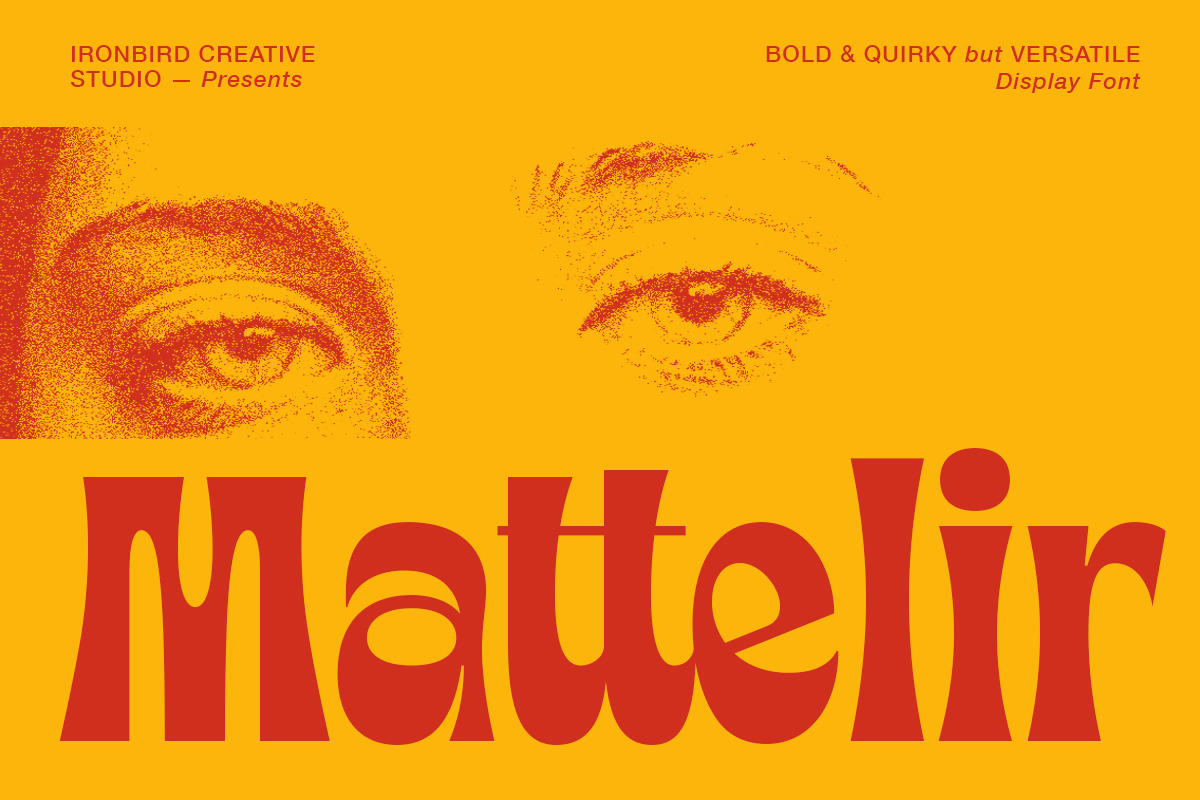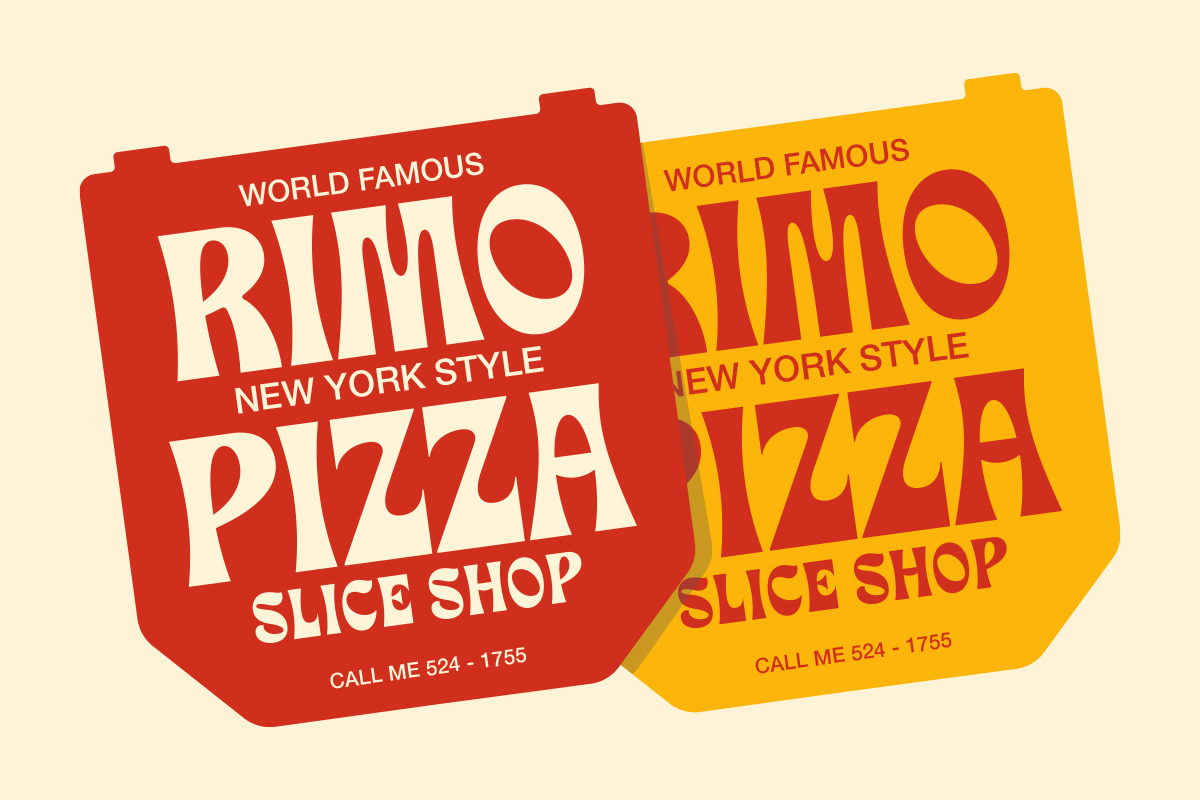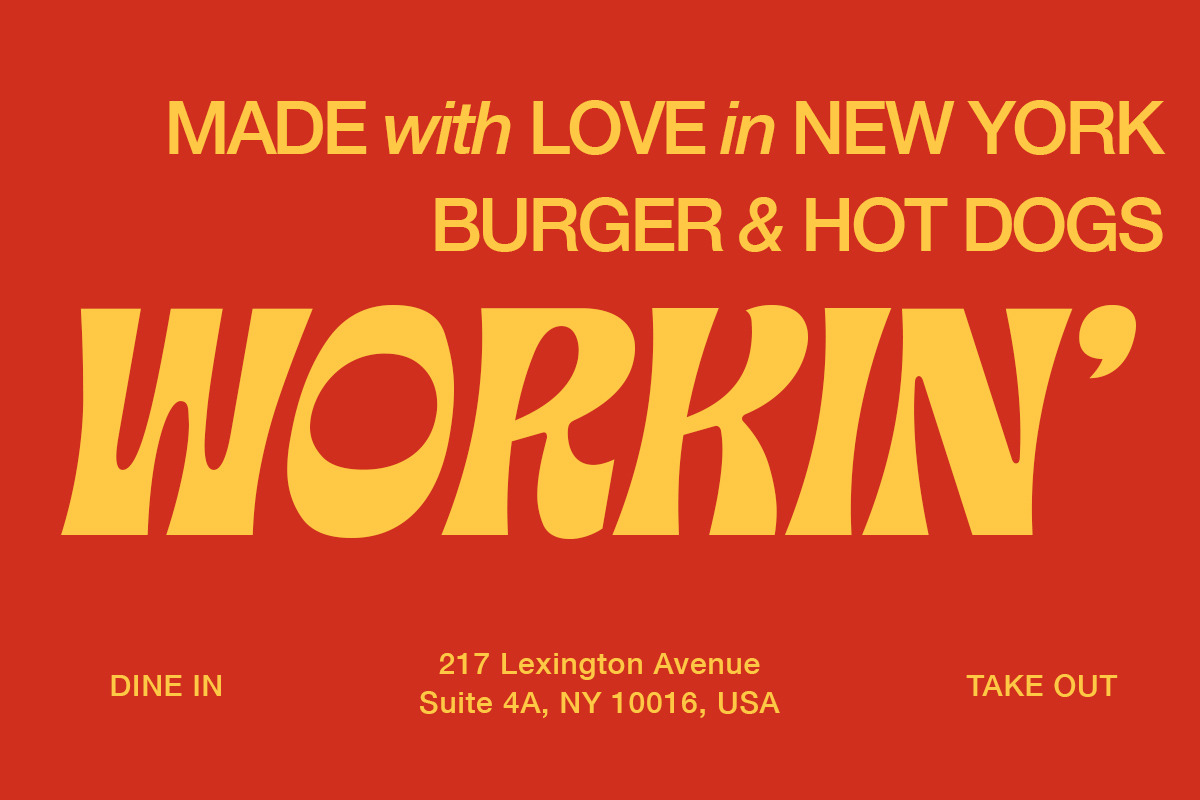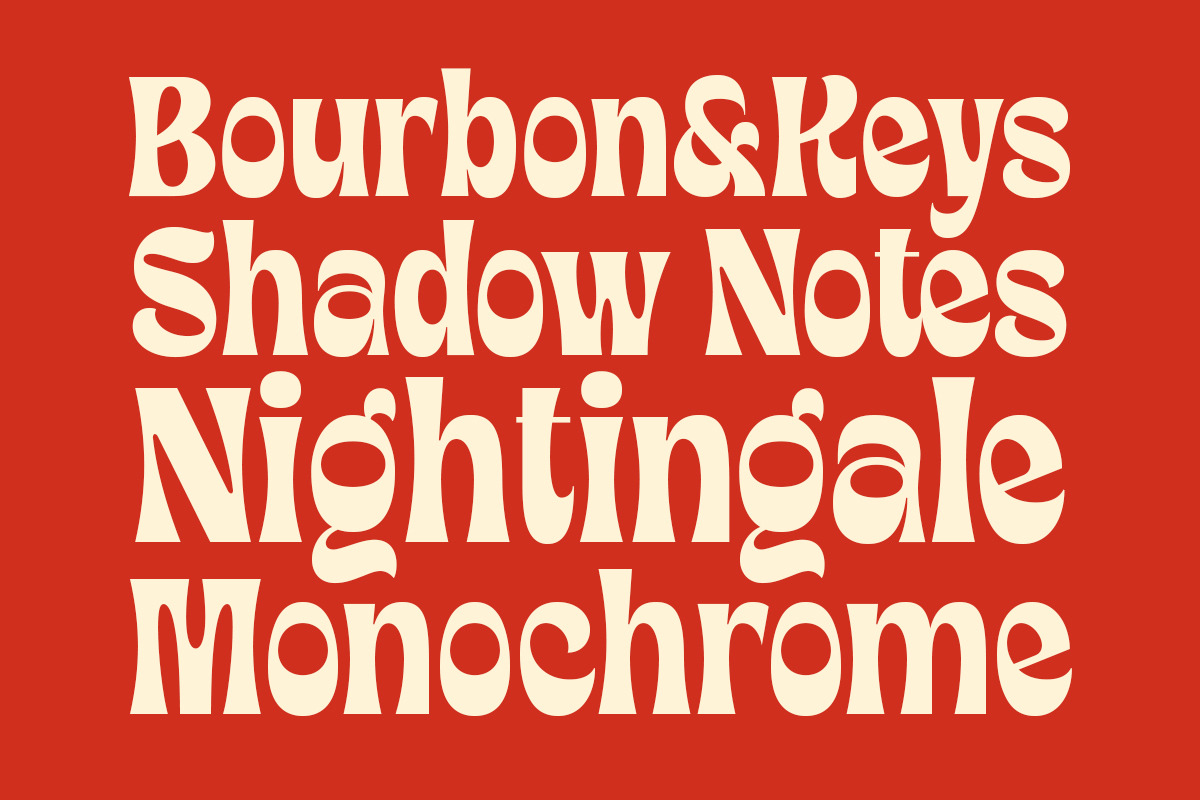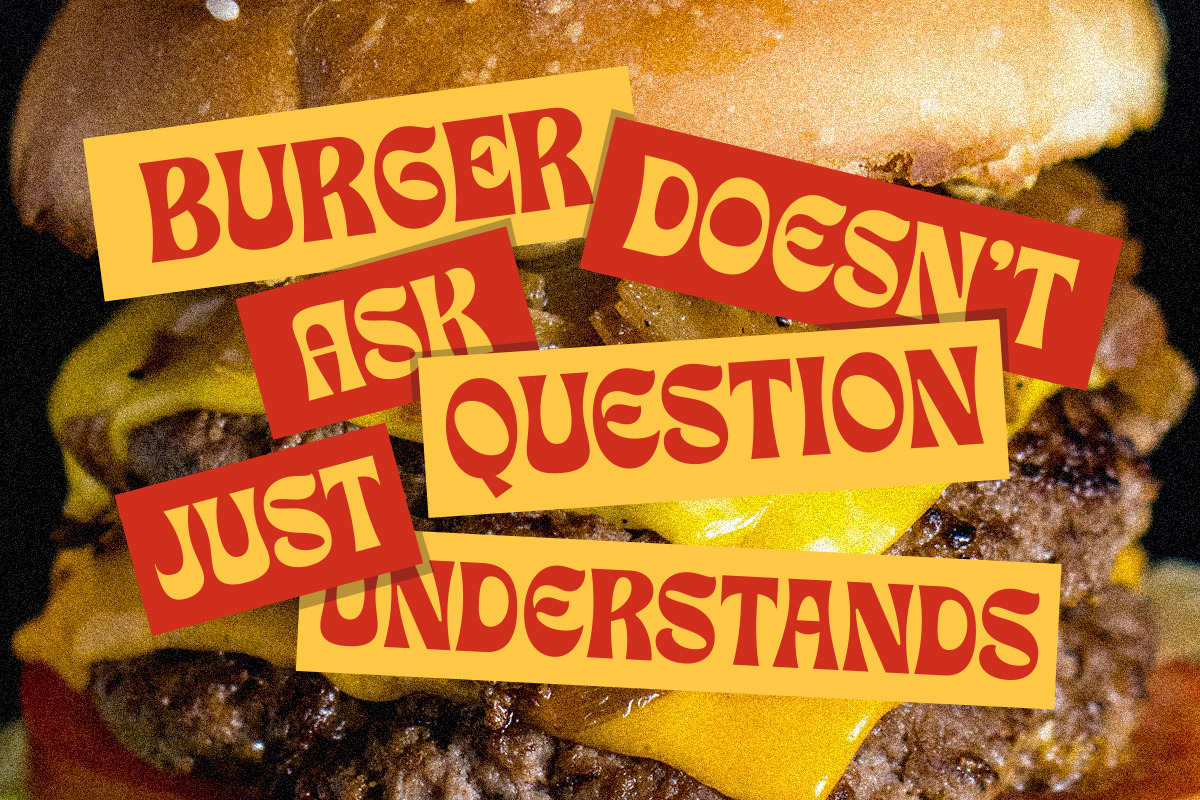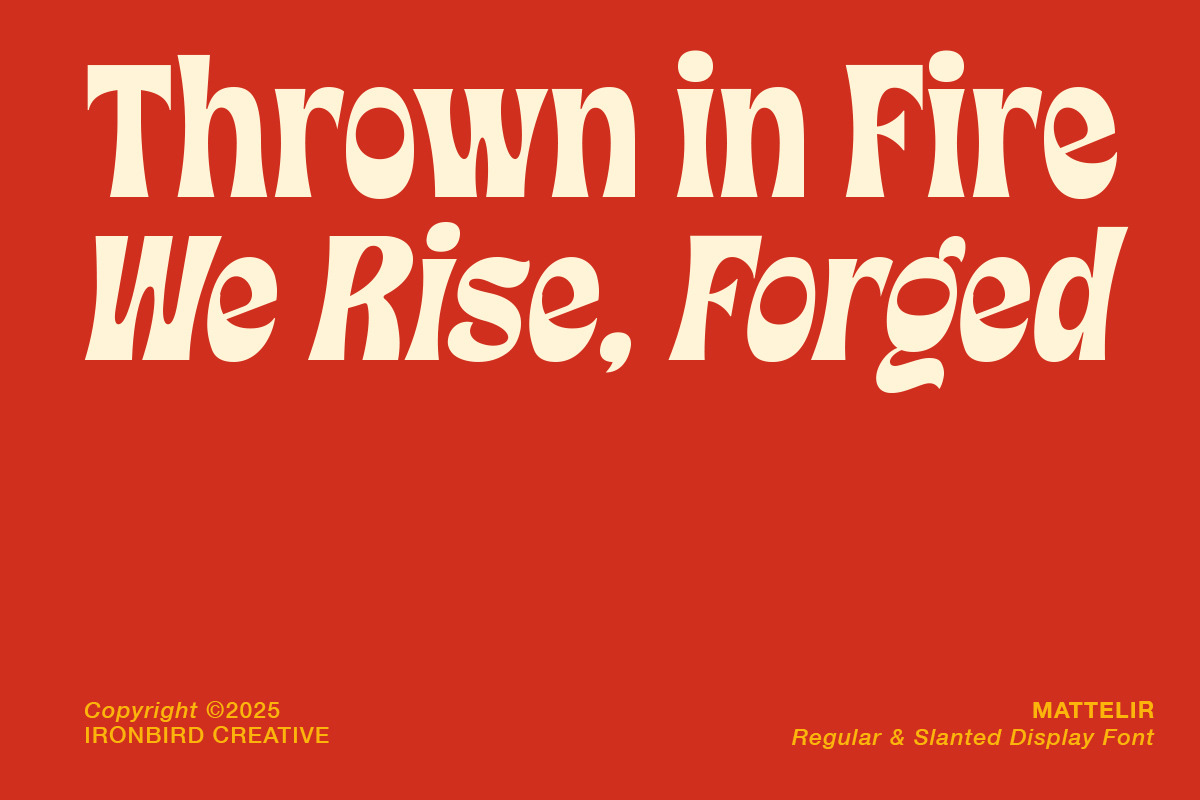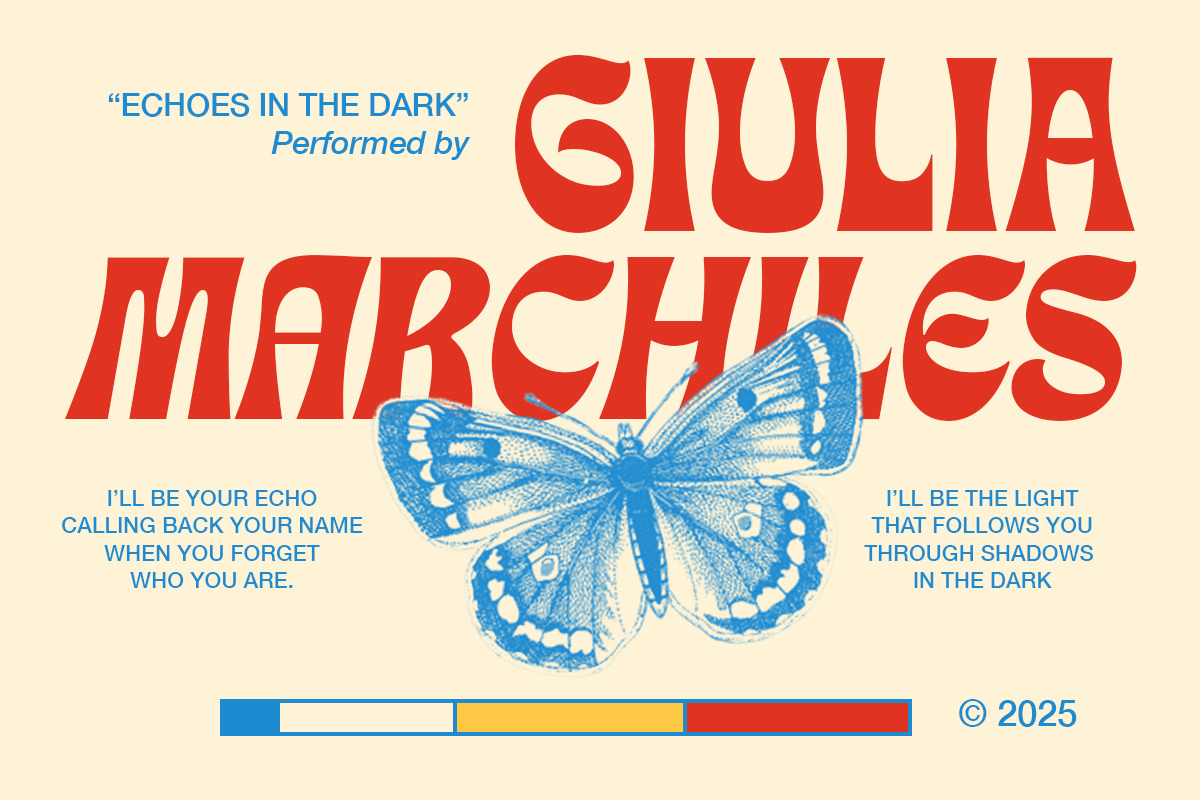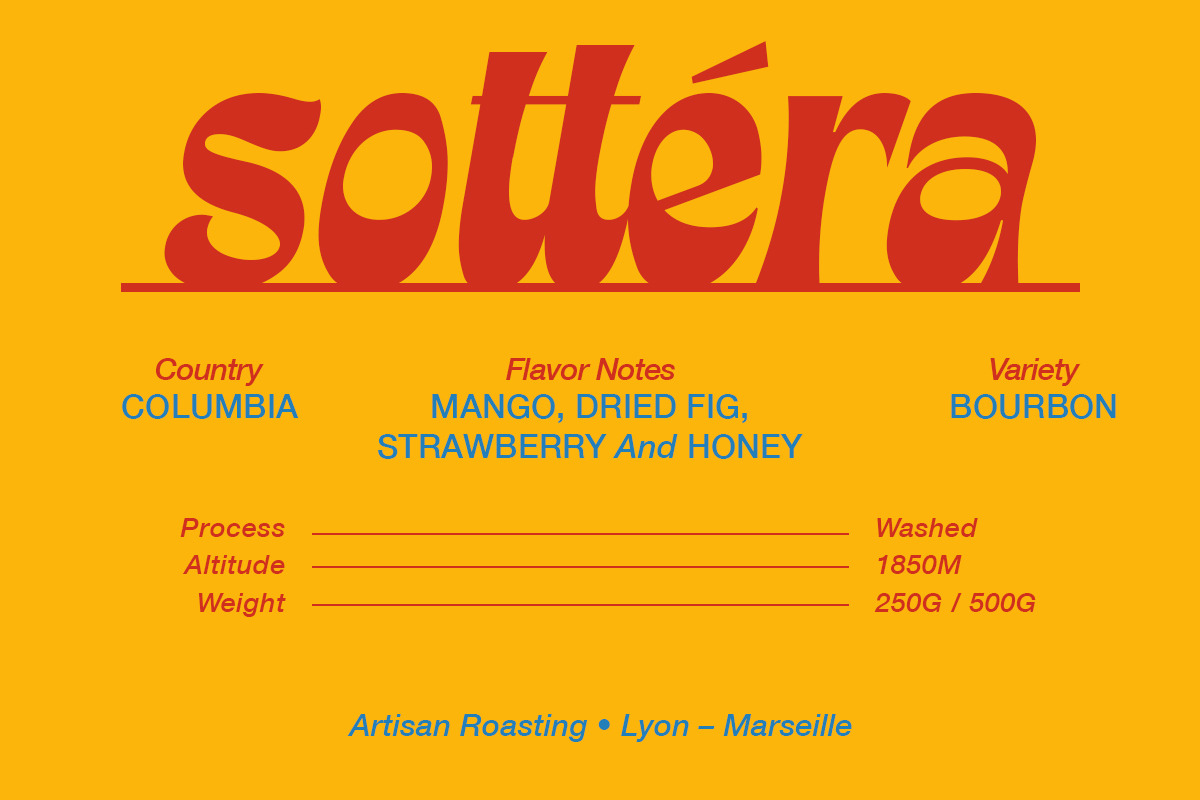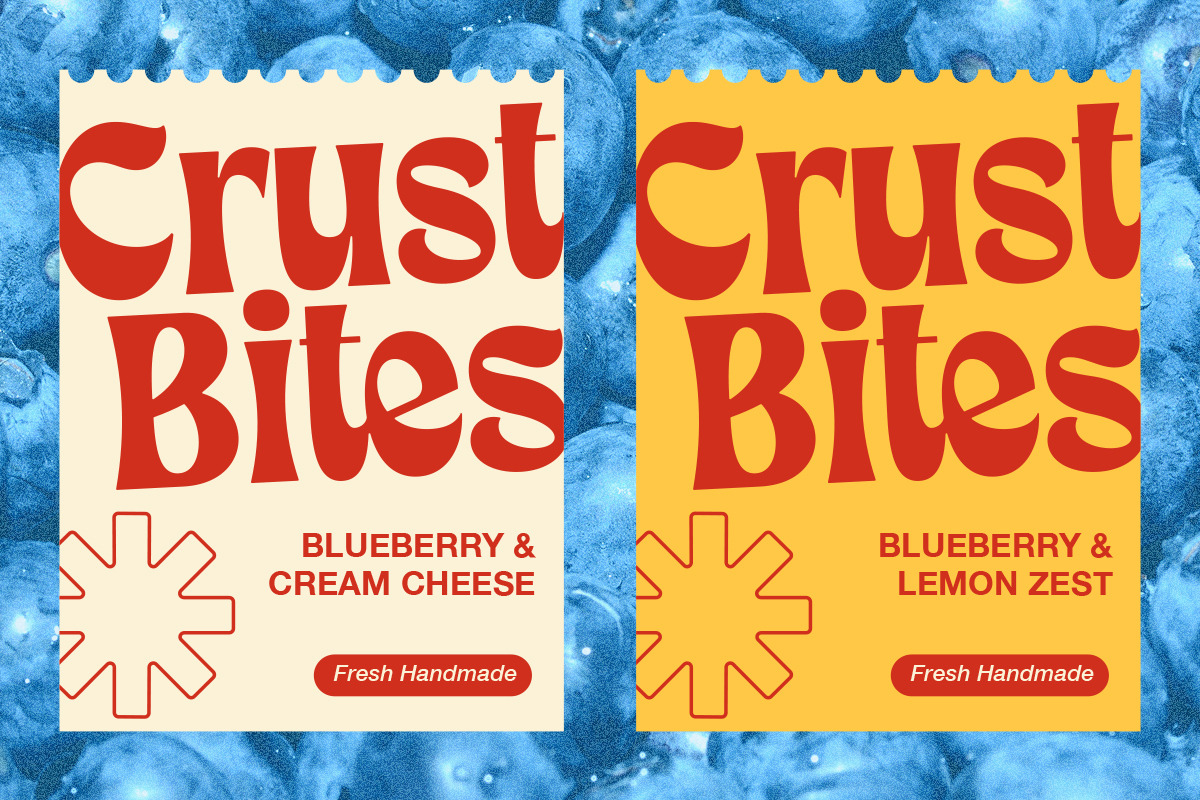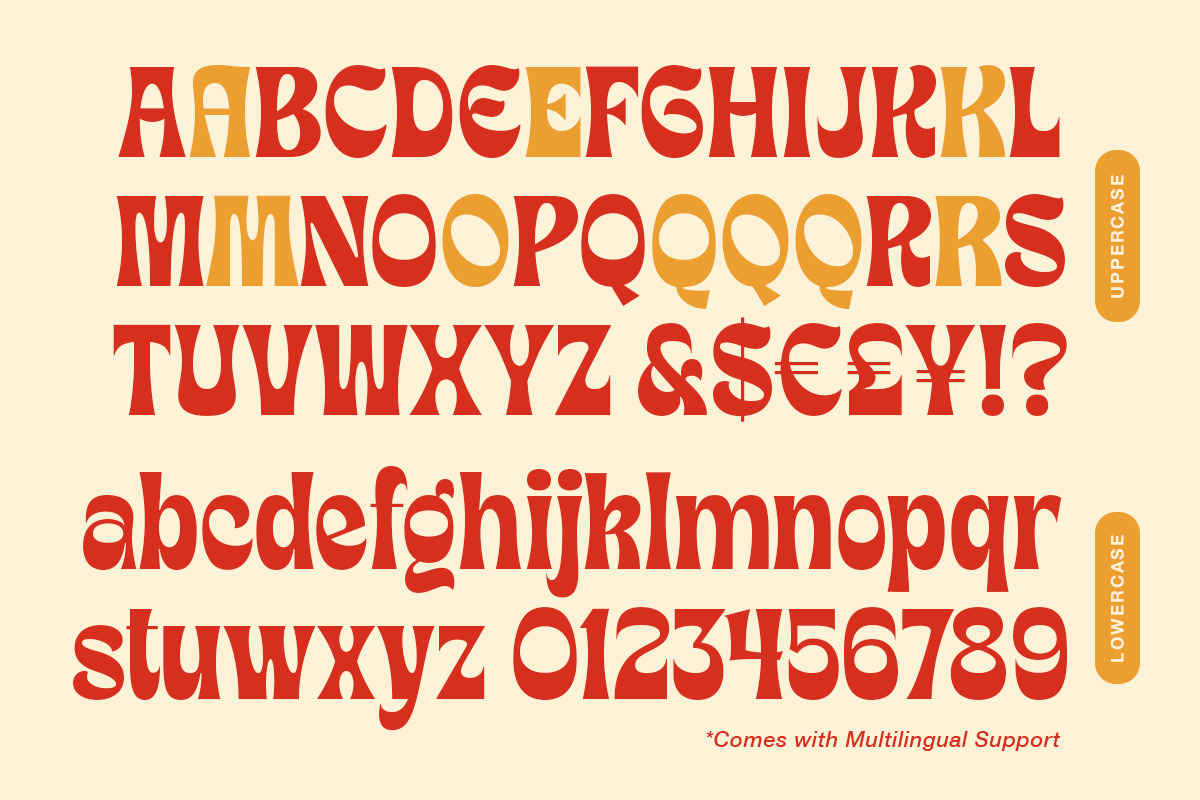
IC Mattelir - Bold & Quirky Font
IC Mattelir is a bold, quirky, and versatile display font that brings instant character to your designs. With its playful curves and confident strokes, this typeface is perfect for projects that need a touch of retro charm mixed with modern creativity. Whether you’re designing branding, posters, packaging, or social media graphics.